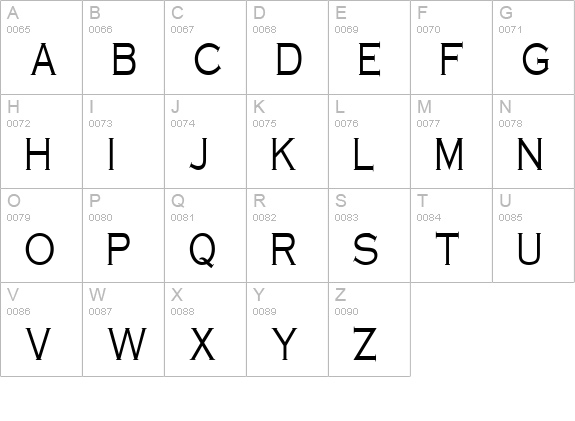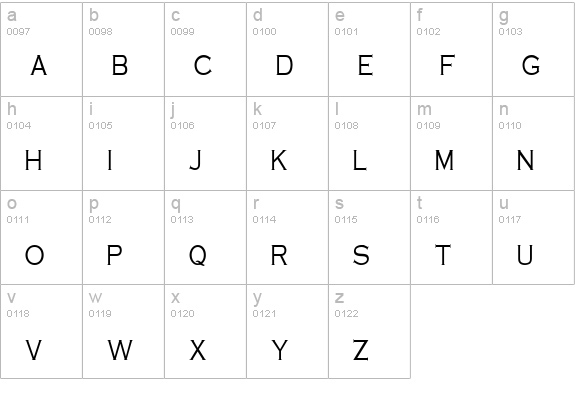
Cobalt Thin Normal Font Details
Cobalt Thin Normal is a delicate, low-contrast variant in the Cobalt typeface family \xE2\x80\x94 well suited to fashion editorial, minimal branding, and high-contrast display.
Introducing Cobalt Thin Normal, a sleek and modern typeface that exudes elegance and sophistication. With its clean lines and subtle curves, this font is perfect for adding a touch of refinement to any design project. Whether you're creating a logo, website, or print materials, Cobalt Thin Normal is sure to make a bold statement. And the best part? Cobalt Thin Normal is available for free download at FontsMarket.com. That's right, you can access this stunning font at no cost, making it the perfect choice for budget-conscious designers looking to elevate their work. Don't miss out on the opportunity to enhance your projects with the timeless beauty of Cobalt Thin Normal. Download it today and take your designs to the next level!